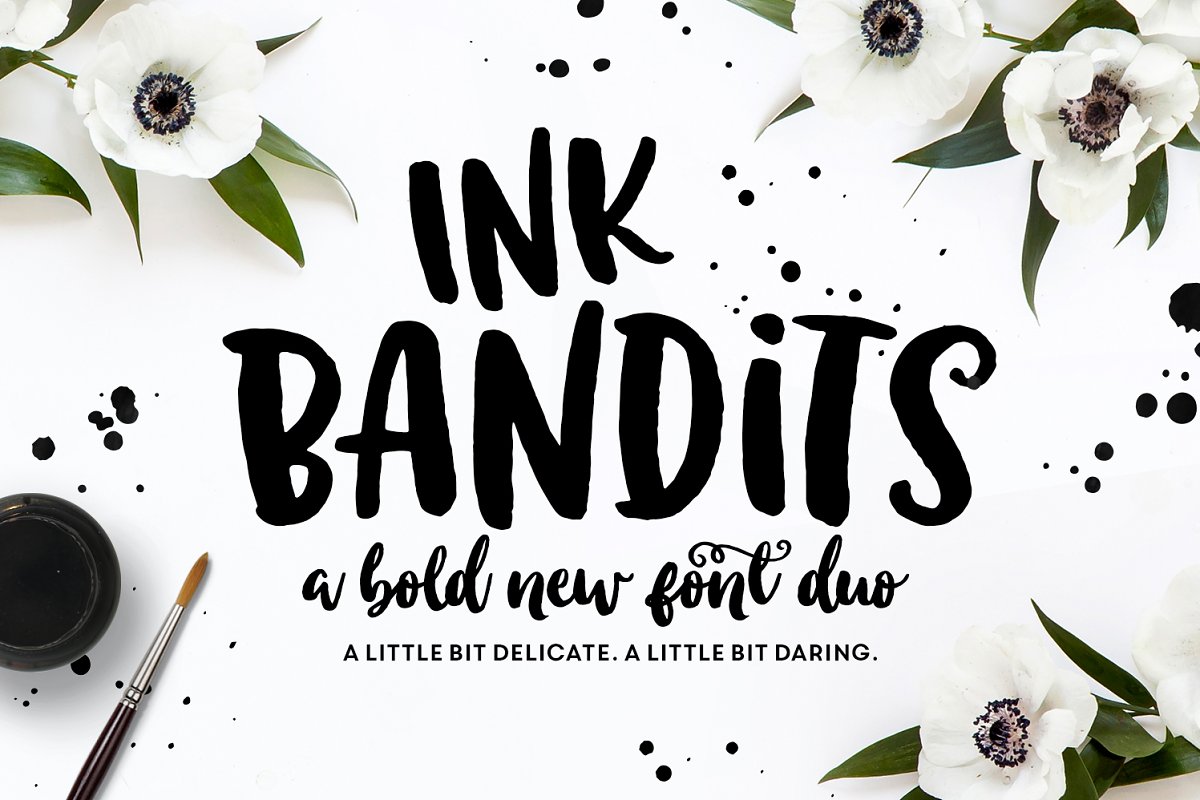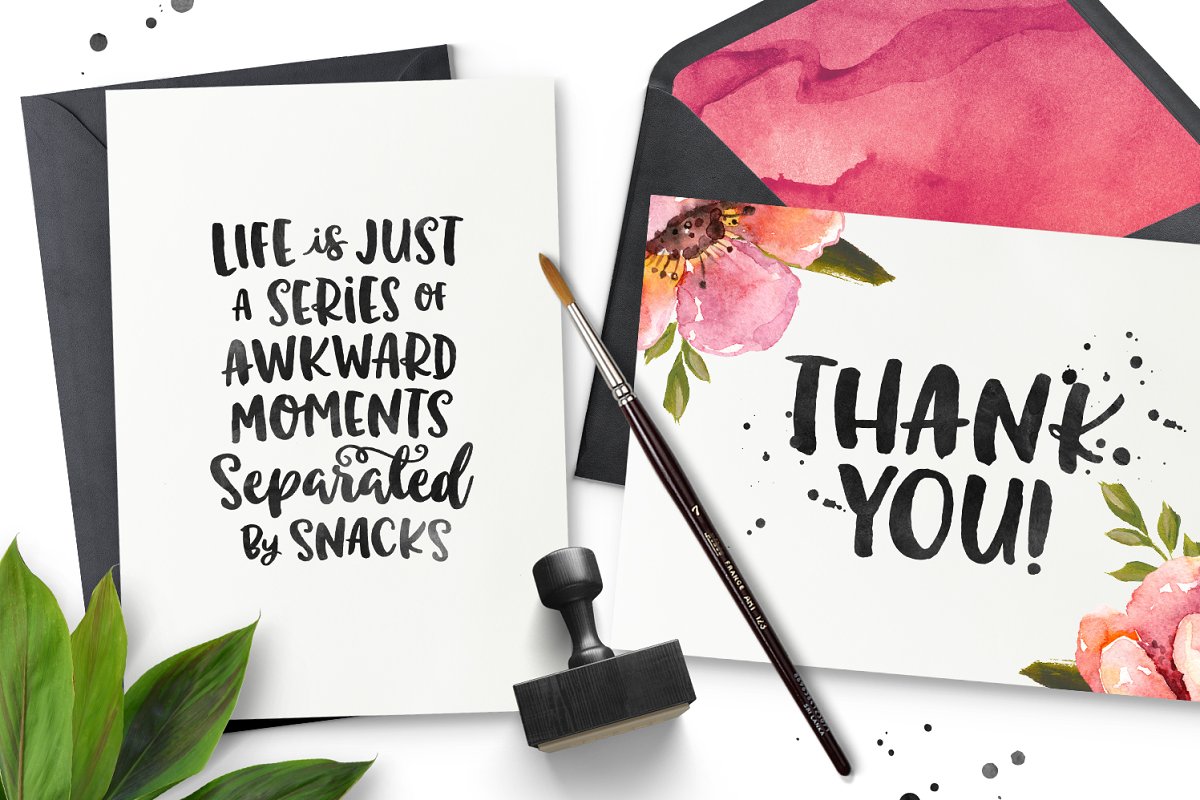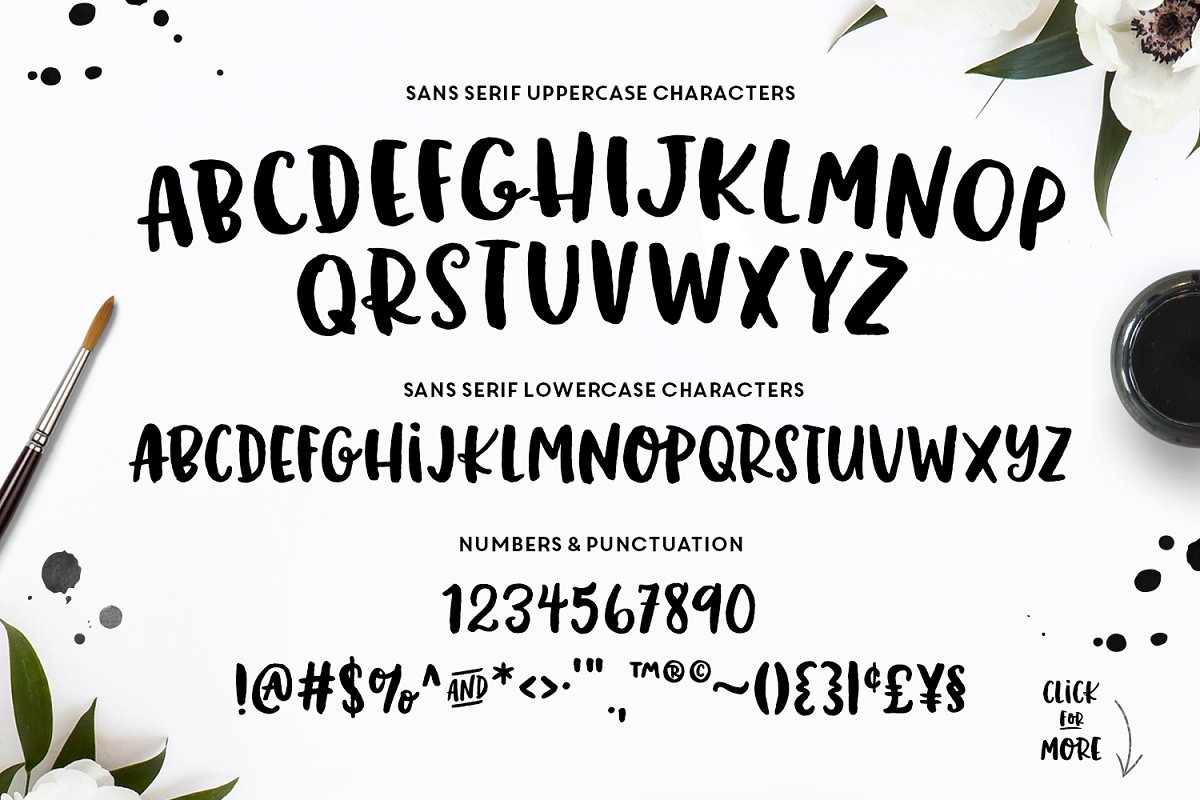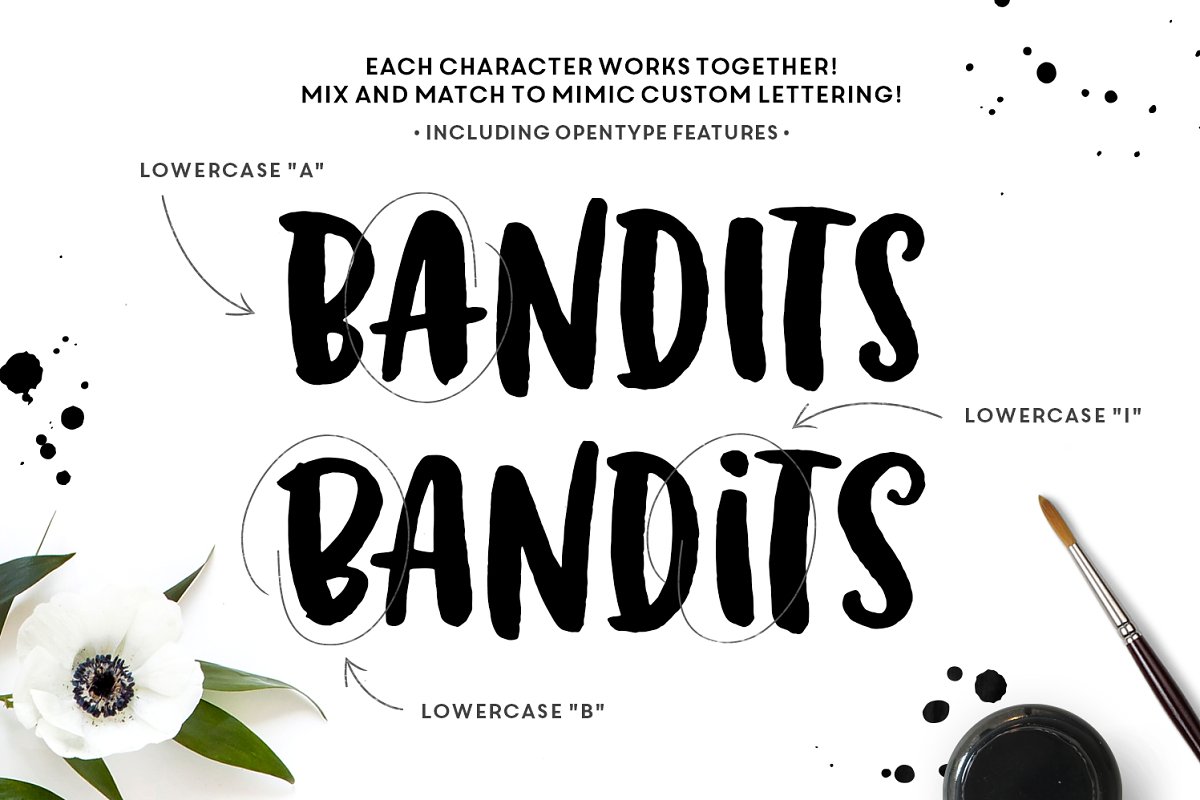
About the Ink Bandits Duo Font
Meet Ink Bandits! A bold and cheeky typeface duo, perfect for hand lettering projects, greeting cards, typography work, unique invitations, stamps, branding and MORE!Ink Bandits comes in a in both a fun, sans serif style, as well as an organic, irregular script font, Plus, 85 catchwords and ornaments to add some extra hand-lettered flair to your work! ;)What you get:Ink Bandits Sans Serif (OTF & TTF)Ink Bandits Script (OTF & TTF)Ink Bandits Extras (OTF & TTF)PDF Character Guide For the ExtrasWestern European Language SupportAll right, have fun! If you need any help or have any questions, just give me a shout! And if for some reason, you’re not happy with the purchase please let me know